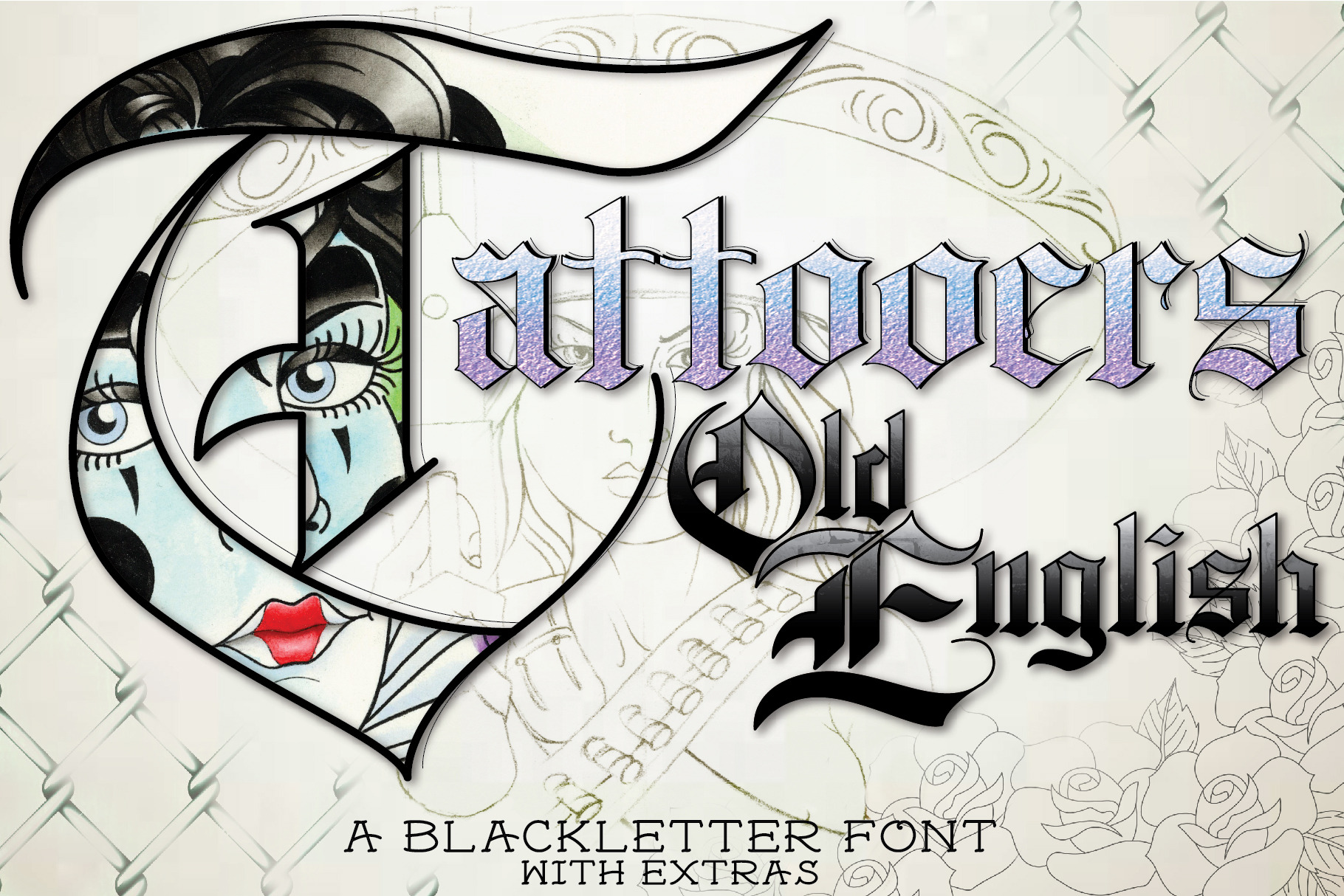
Tattooers Old English Font
Classic, clean, legible Old English Tattoo style font. Looks great in a gazillion different uses from your Lowrider Club to your belly-rocker tattoo, use as a mask or to create simple, letter-design or monogram style logos. This font is designed to be clear and readable from a distance to make it withstand the gradual degrading of outlines over time...just like it should when its applied to skin! All the Old English font styles I have found have always been too complicated, like the designers ego gets in the way, leaving it too busy and hard to read. The goal with this font was to find a balance between the classic, fancy calligraphy a distinctly strong and precise letterset.
Included is an uppercase, lowercase and number set. All ready for you to get creative and add your own flair. This font will do so much of the work for you! I have included the entire set as a vector .Ai file so you can change it up if you so please! Looks great on just about anything, storefronts, motorcycle jackets, clothing, t-shirts and of course tattoos!! The blocky style is offset by some nice whipped out lines and curves here and there...but never too much to interfere with its gangsterability.
Old english tattoo lettering spans so many cultures in tattooing from Olde Britannia to modern Chicano styles- you can find a use for this just about anywhere.
I was taught to draw old english lettering this way from one of my mentors and I'm happy to finally have it available to share in the digital realm...for both of us! I have been using it nonstop since it was complete. I'm not only the Tattooers Old English creator...I'm also a client.